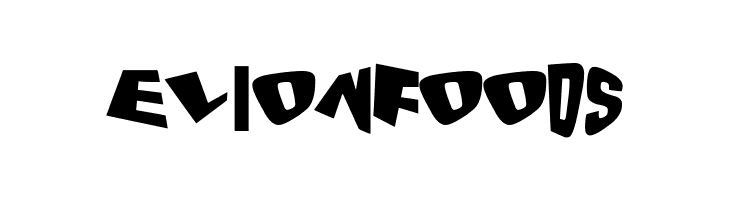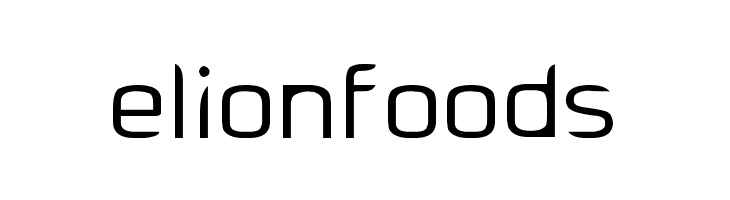
Freebooter Script Font
An elegant script font with flowing, interconnected characters and elaborate swashes.
Scriptina Font
An elegant, flowing script font with calligraphic style.
Insaniburger Font
A bold, rounded font with a playful and approachable style.
Parchment MF Font
A historical, calligraphic font with an elegant, hand-drawn style.
Scriptina Pro Font
An elegant, cursive script font with high contrast and ornate flourishes.
RenogareSoft-Regular Font
A modern sans-serif font with smooth, rounded edges and excellent readability.
Just_Dance_Bold Font
A bold, modern font with thick, uniform strokes for strong visual impact.
TheReconLegendFont Font
A bold, high-contrast serif font with a classic and commanding presence.
TT Norms Medium Font
A modern, geometric sans-serif font with balanced proportions and clear readability.
RoundsBlack Font
A bold, rounded font with smooth curves and a modern, friendly style.
Madina Font
An elegant script font with flowing cursive style and intricate swashes.
Insaniburger with Cheese Font
A bold, rounded font with a playful and friendly appearance.
Brady Bunch Remastered Font
A playful, retro font with bold, rounded letters and a hand-drawn feel.
Renata-Regular Font
A dynamic and fluid handwritten font with smooth, flowing strokes.
Daydream Font